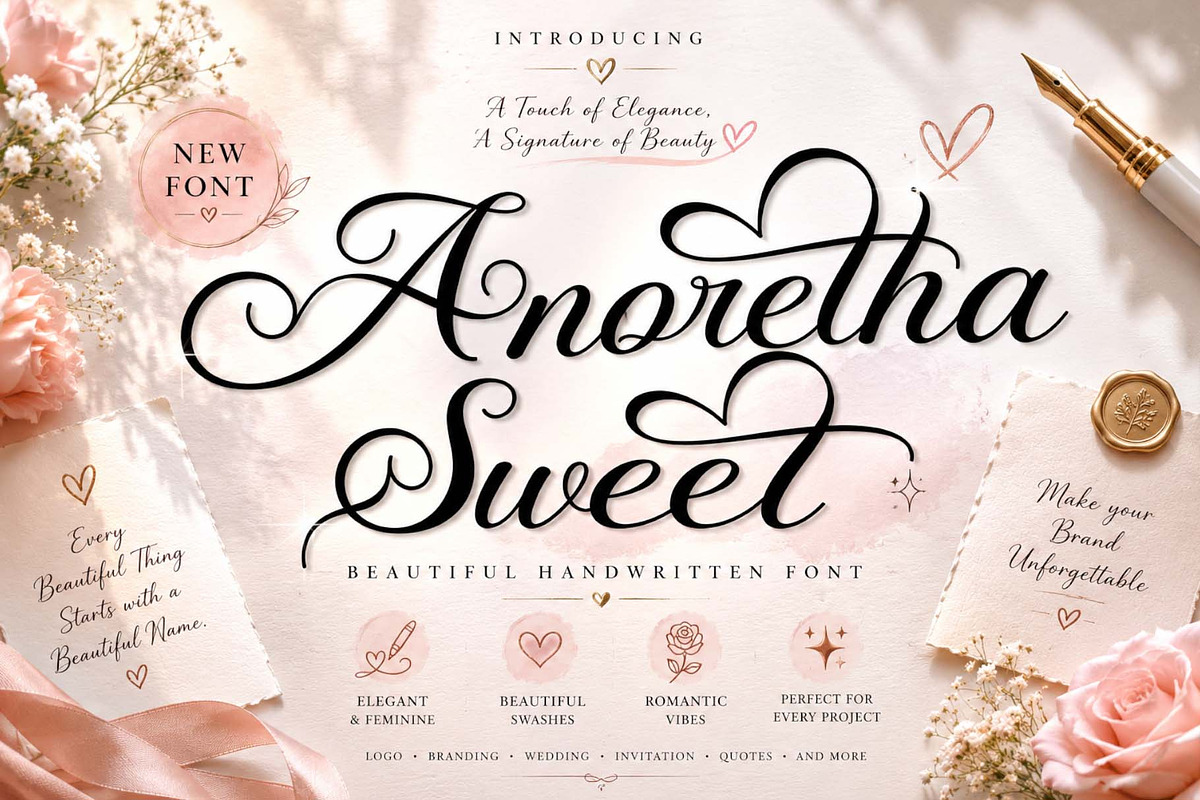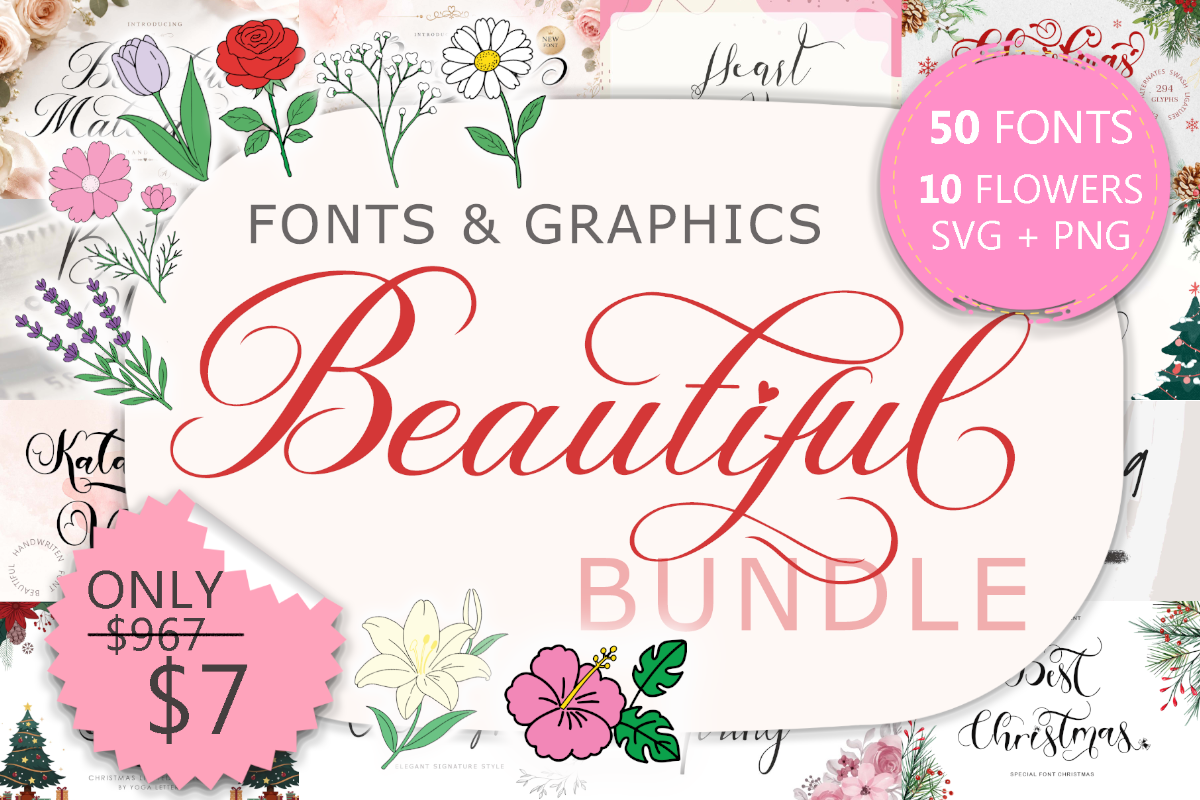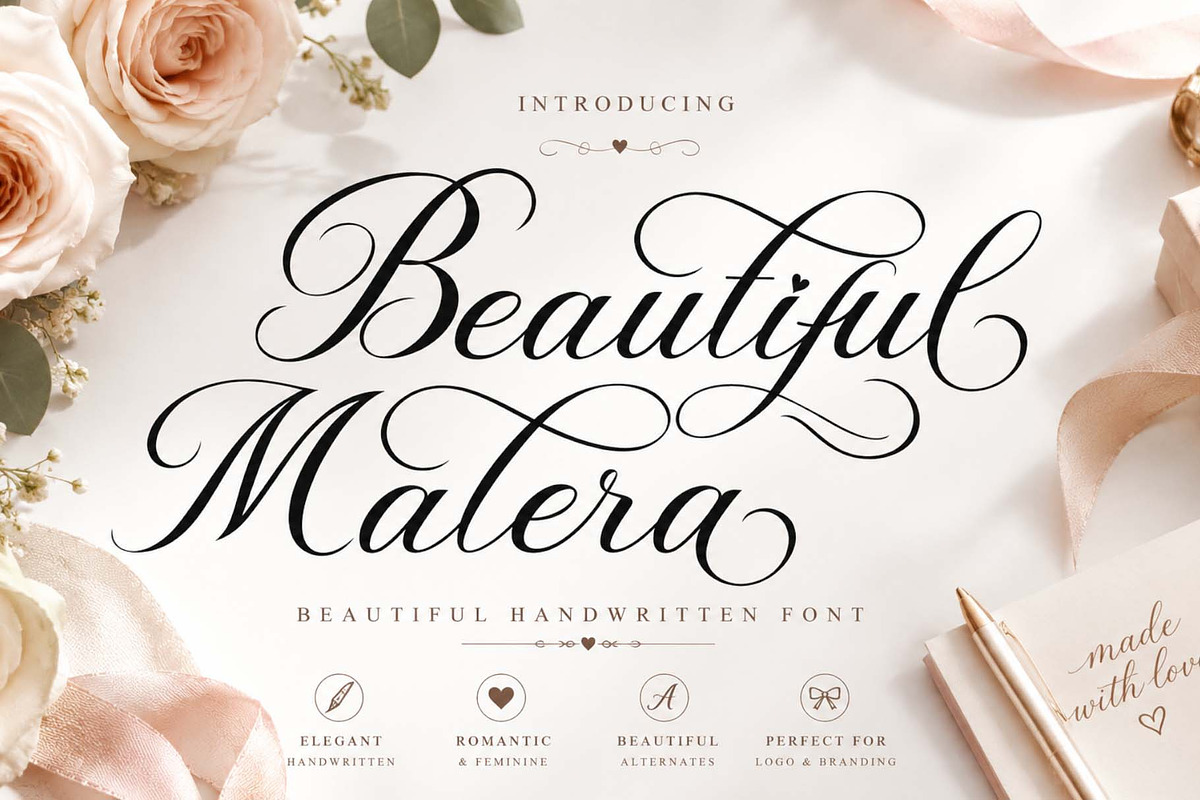
Beautiful Font & Graphics Bundle
Complete font for all your work.
Beautiful Font & Graphics Bundle
This versatile bundle combines stylish typography with captivating floral illustrations to help you create beautiful and professional designs with ease.
1. Beautiful Malera
2. Anoretha Sweet
3. Christmas Aesthetic
4. Christmas Style
5. Mommy Vanesa
6. Mother Sahila
7. Mother Belinda
8. Mother Craft
9. Christmas Balethy
10. Mommy Cute
11. Dainty Summer
12. Dainty Spring
13. Katarina Valentine
14. Janytha Valentine
15. Anetha Valentine
16. Amazing Smile
17. Boutique Chello
18. Something Honey
19. Christmas Amellia
20. Christmas Dainty
21. Autumn Panorama
22. Juliette Santa
23. Peggy Spring
24. Bettaria Spring
25. Welsha
26. Janetha Spring
27. Neirra Spring
28. Tough Mother
29. Adella Spring
30. Adilla Paleeto
31. Curly Valentine
32. Christmas Garden
33. Christmas Betterlove
34. Christmas Laurent
35. Christmas Peachy
36. Butter Christmas
37. Christmas Rose
38. Christmas Shadow
39. Heart Mother
40. Father Love
41. Spring Easter
42. April Spring
43. Beautiful Easter
44. Spring Woman
45. Spring Morning
46. Spring Everyday
47. Christmas Script
48. Christmas Prayer
49. Best Christmas
50. Bolpen